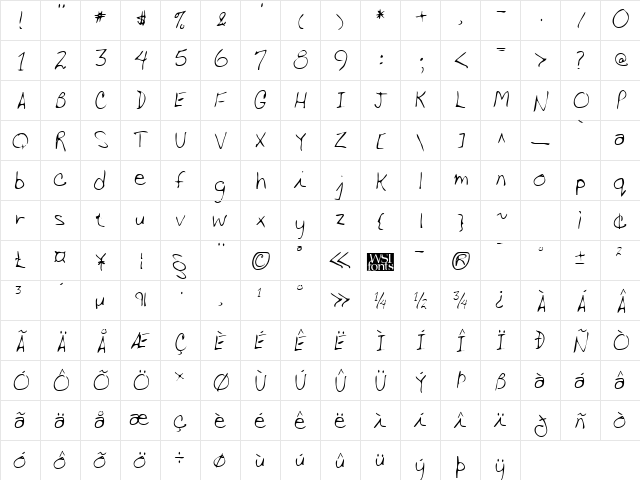
LauriesHand Regular
Design Context for LauriesHand Typeface
LauriesHand flows with the natural rhythm of handwritten lettering, making it ideal for designs that call for warmth and personal expression.
Font Pairing: Combine LauriesHand with a simple geometric sans for maximum contrast — the tension between flowing curves and clean structure is a classic typographic pairing.
Pro Tip: Use LauriesHand for short runs of text — names, titles, or taglines. Extended body copy in script faces tires the eye quickly.